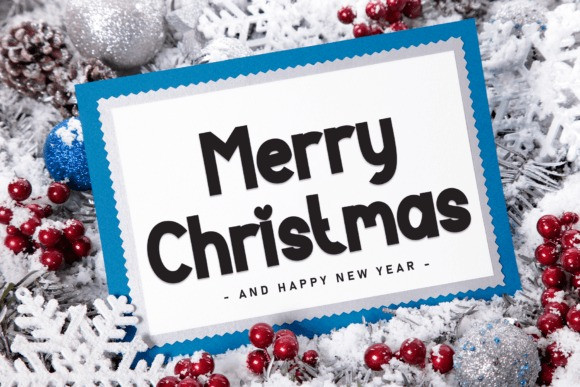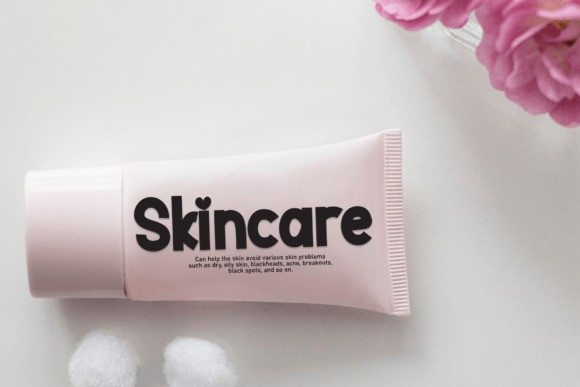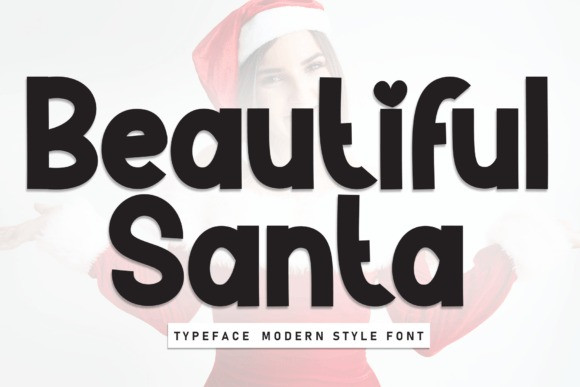
Beautiful Santa Font
Beautiful Santa is a sweet and friendly handwritten display font. Cute and fun, this font is ideal for writing wedding invitations, cards, or any other design that might need a fun touch!